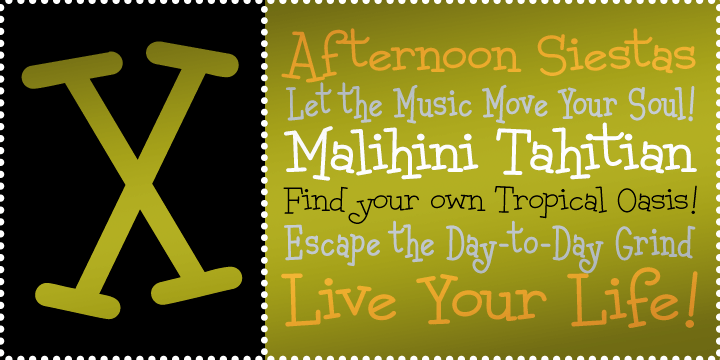
Malihini Tahitian BTN
Malihini Tahitian is a playful, exotic typeface for any island visitor. Malihini literally means foreign visitor, but there is nothing foreign about this fun family! The Tahitian weight offers a more relaxed feel to this versatile family! Unlike Malihini…